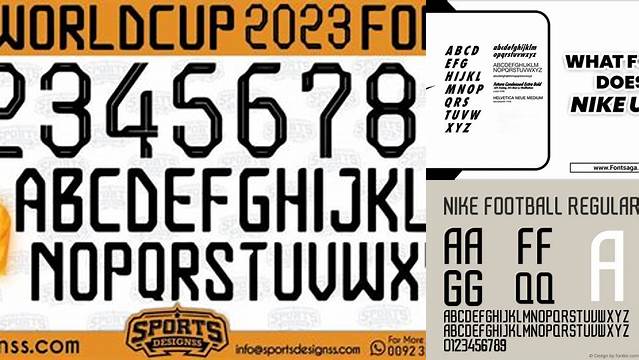
Free Nike Soccer Font Downloads & Alternatives
Are you guys looking for the iconic Nike soccer font for your next design project, jersey customization, or just for kicks? Well, you've come to the right place! Finding official fonts can sometimes be a real headache, especially when you want that authentic look without breaking the bank. We've all been there, scrolling through endless websites, trying to match that sleek, sporty vibe that Nike just nails. The good news is, while Nike doesn't offer their official soccer font for free download directly from their site, there are some fantastic alternatives and similar-looking fonts out there that can get you pretty darn close. Let’s dive into how you can get that Nike soccer aesthetic for yourself, legally and for free (or at a very low cost for premium options). So, grab your favorite beverage, settle in, and let's explore the world of sporty typography! We'll cover what makes the Nike soccer font so special, where to find similar free fonts, and how to use them effectively in your designs. Get ready to elevate your game, design-wise, with the perfect font that screams athletic performance and style.
Understanding the Nike Soccer Font Vibe
So, what exactly is it about the Nike soccer font that makes it so recognizable and desirable? It’s not just a random collection of letters, guys. Nike’s typography, especially for their soccer lines, is all about conveying speed, power, precision, and modernity. Think about the jerseys you’ve seen on the field, the branding on their cleats, or the bold statements in their ad campaigns. The Nike soccer font typically features clean, sans-serif lines, often with a slightly condensed or extended feel to give it that dynamic edge. It’s usually bold and highly legible, ensuring that names and numbers stand out clearly, even at a distance or on a fast-moving jersey. Some iterations might have unique cuts or angles to the letters, adding a touch of futuristic flair or a nod to the athletic movement itself. It’s a font designed to be seen, to be associated with winning, and to inspire athletes. The key elements we're usually looking for are its sharpness, its athletic proportions, and its overall premium feel. It’s this blend of functionality and aesthetic appeal that makes it a go-to for many designers and fans alike. When you see it, you instantly think of top-tier performance, cutting-edge design, and the spirit of the game. It’s more than just text; it's a brand identity that resonates with millions worldwide. The clean, geometric structure ensures maximum readability, crucial for sports applications where quick identification is key. Yet, it's not purely functional; there's an artistic element that gives it that distinct Nike DNA. It’s a careful balance that few brands manage to achieve so successfully.
Finding Free Nike Soccer Font Alternatives
Now, let's get to the good stuff: where can you actually find these fonts that look like the real deal without costing you a dime? Since Nike keeps its proprietary fonts under wraps, we need to look for fonts that share similar characteristics. The internet is a treasure trove, guys, but you need to know where to look and what keywords to use. Google Fonts is always a fantastic starting point for high-quality, free fonts. Look for sans-serif fonts with bold weights and clean lines. Some excellent candidates here include Oswald, Bebas Neue, and Montserrat. Oswald, in particular, is a condensed sans-serif that has a very similar athletic feel to many Nike-inspired fonts. Bebas Neue is another strong contender, known for its tall, condensed lettering which is perfect for jersey names. Montserrat offers a wider range of weights and styles, so you can play around with its bolder, more geometric options to capture that sporty look. Another great resource is Font Squirrel. They curate high-quality, free fonts that are often perfect for commercial use. You’ll want to search for terms like “athletic font,” “sports font,” “jersey font,” or “display sans-serif.” Keep an eye out for fonts with sharp terminals, clean strokes, and a generally bold appearance. Sites like DaFont and 1001 Fonts also have a massive selection, but you need to be a bit more discerning. Always check the license carefully – many free fonts are only for personal use. Look for fonts explicitly stating they are free for commercial use if you plan to use them for anything beyond personal projects. Some specific fonts that often get recommended as Nike-lookalikes include Road Rage, Kelson, and sometimes even Impact (though Impact can be a bit dated, its boldness is undeniable). When searching, pay attention to the letter spacing (kerning) and the overall weight. A slightly condensed feel often works wonders for that athletic, streamlined look. Experimentation is key here, guys. Download a few different options and see which one best captures the essence of the Nike soccer font for your specific needs. You might find that a combination of fonts or a slight modification to a free font can get you even closer to that perfect, authentic design.
Beyond the Font: Achieving the Full Nike Soccer Aesthetic
While the font is a huge part of the Nike soccer look, guys, it's not the only part. To truly nail that iconic vibe, you need to consider the overall design elements that Nike consistently uses. Think about their color palettes – often bold contrasts, classic black and white, or vibrant, energetic hues. The placement of the font is also crucial. Nike is a master of composition, using typography to create balance and visual hierarchy. They often use the font for names and numbers on jerseys, but also for impactful slogans, product names, and branding elements. Consider the layout: clean lines, dynamic angles, and a sense of movement are key. Many Nike designs incorporate subtle graphic elements like dynamic swooshes, abstract patterns inspired by motion, or clean geometric shapes. When designing your own pieces, try to keep the overall design clean and uncluttered, allowing the typography and any other key graphic elements to breathe. Simplicity and boldness are often the winning combination. If you're designing a jersey, think about the materials and textures Nike uses – the performance fabrics, the breathable mesh. While you can't replicate that in a digital design, you can use textures or gradients that suggest those qualities. For web or social media graphics, consider using high-quality images of athletes or soccer action to complement your typography. The goal is to evoke the same feeling of performance, aspiration, and athletic excellence that Nike’s branding represents. It’s a holistic approach; the font is the star player, but the rest of the team needs to be on point too! So, experiment with layouts, color schemes, and even subtle background elements to create a cohesive and powerful design that truly embodies the spirit of Nike soccer. Remember, it’s about capturing that winning mentality in every pixel. You’re not just using a font; you’re channeling a brand ethos. This comprehensive approach ensures your design doesn't just look like Nike, it feels like Nike.